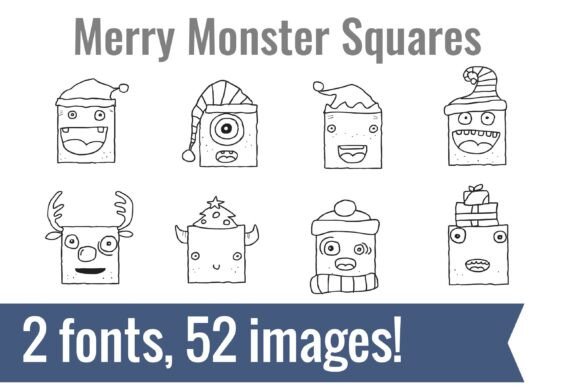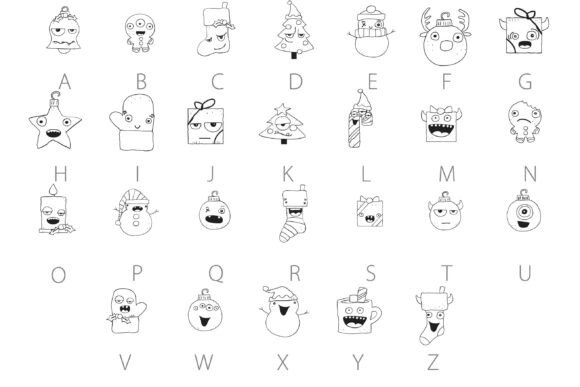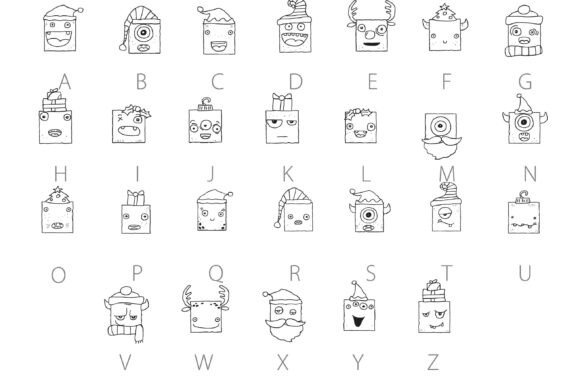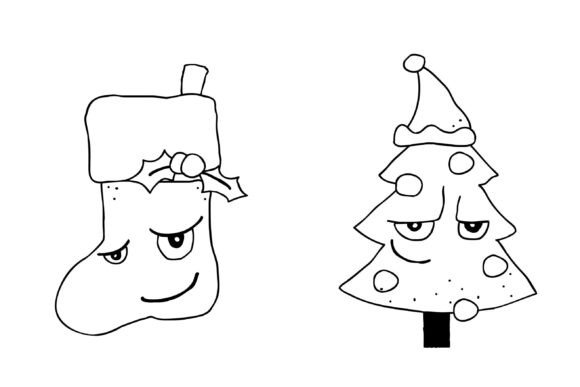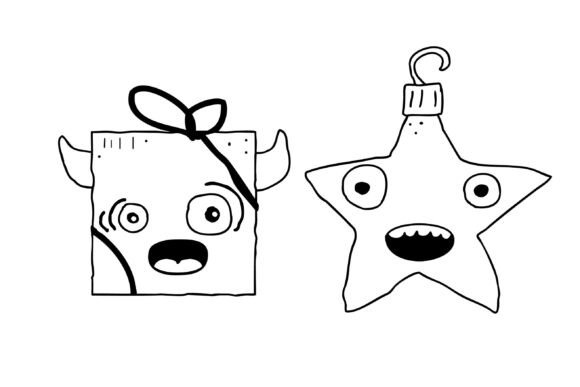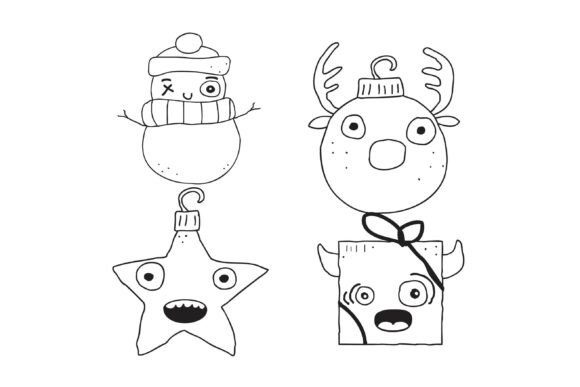
Introduction to Merry Monster Holiday Dingbats Font
Unlock endless creativity with two perfectly coordinated fonts.
There are two dingbat fonts in this bundle, both adorable and merry monsters Inject a dose of playful rebellion and cheeky humor into your seasonal designs with the Merry Monster Holidays font set, a wildly original pair of dingbat typefaces featuring mischievous, goofy Christmas creatures.